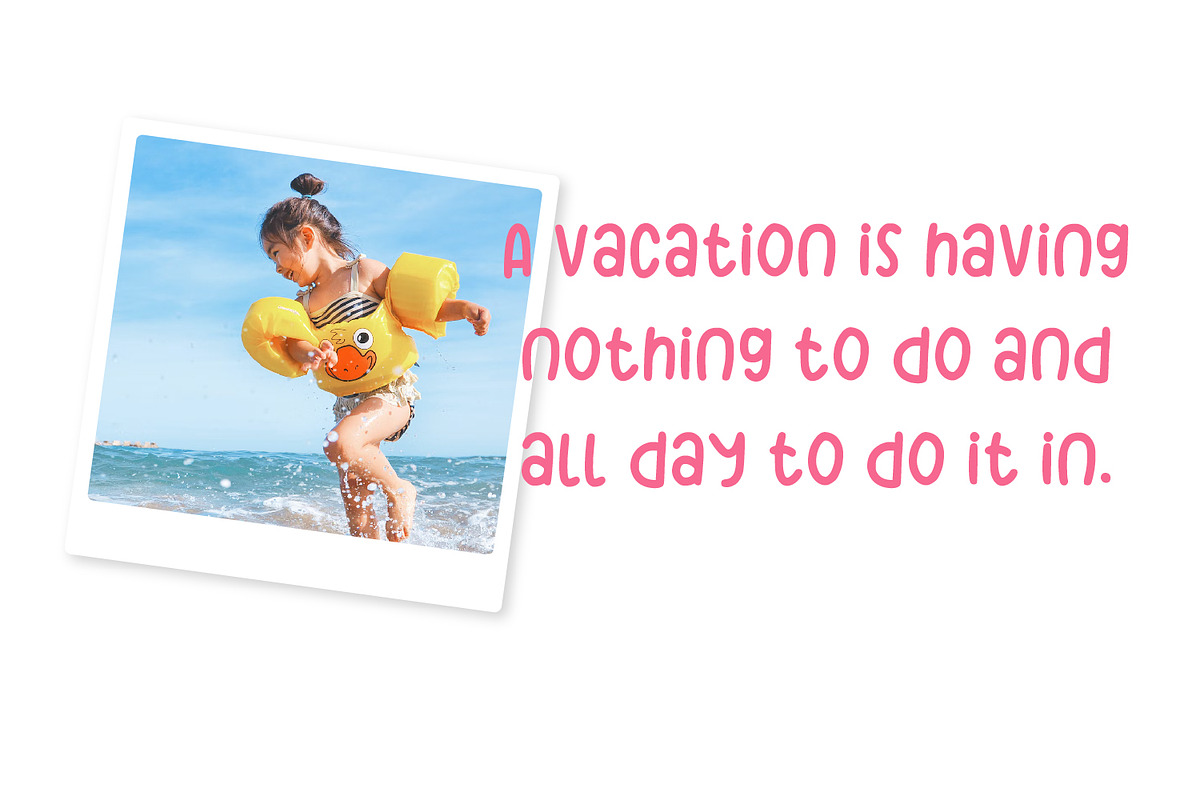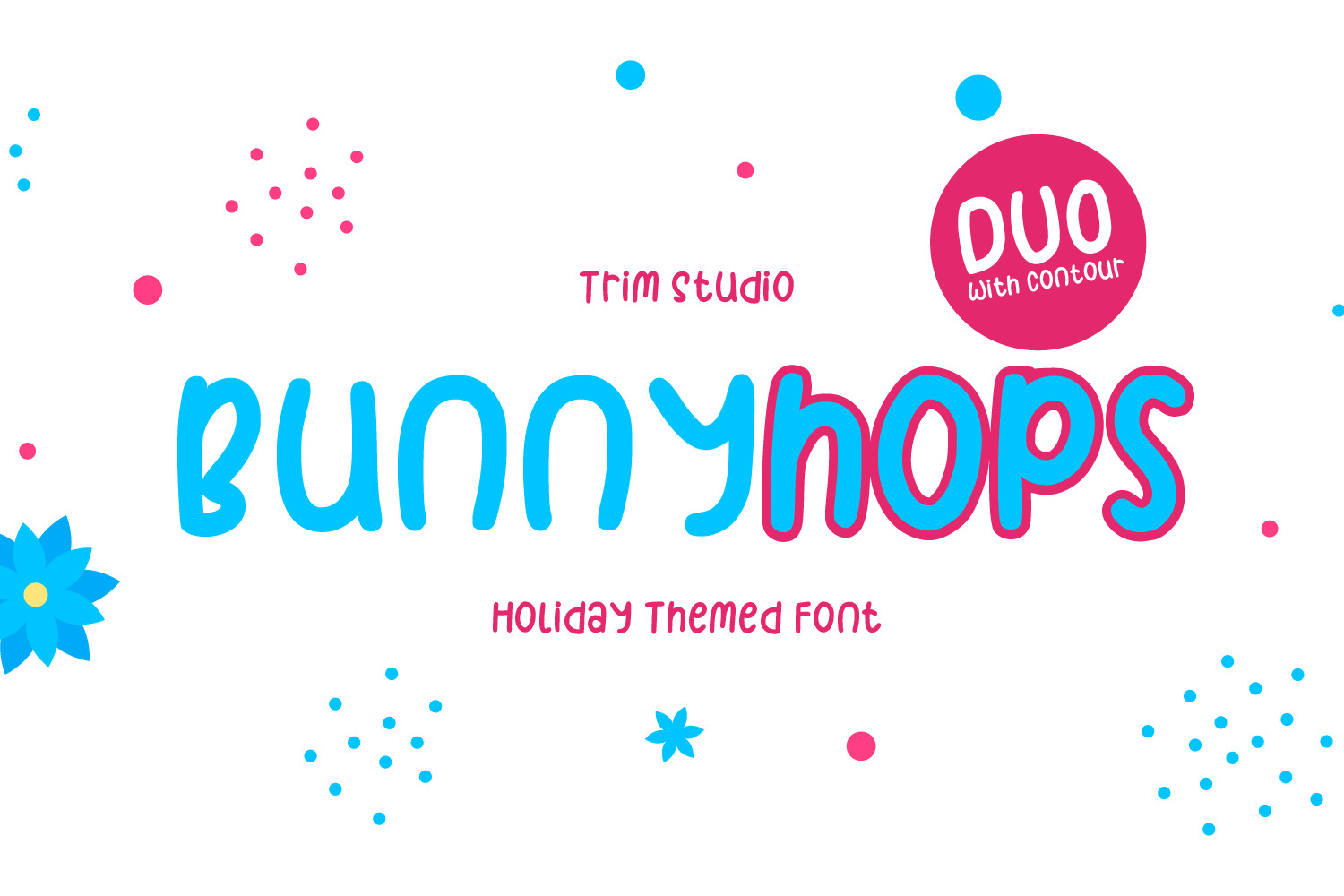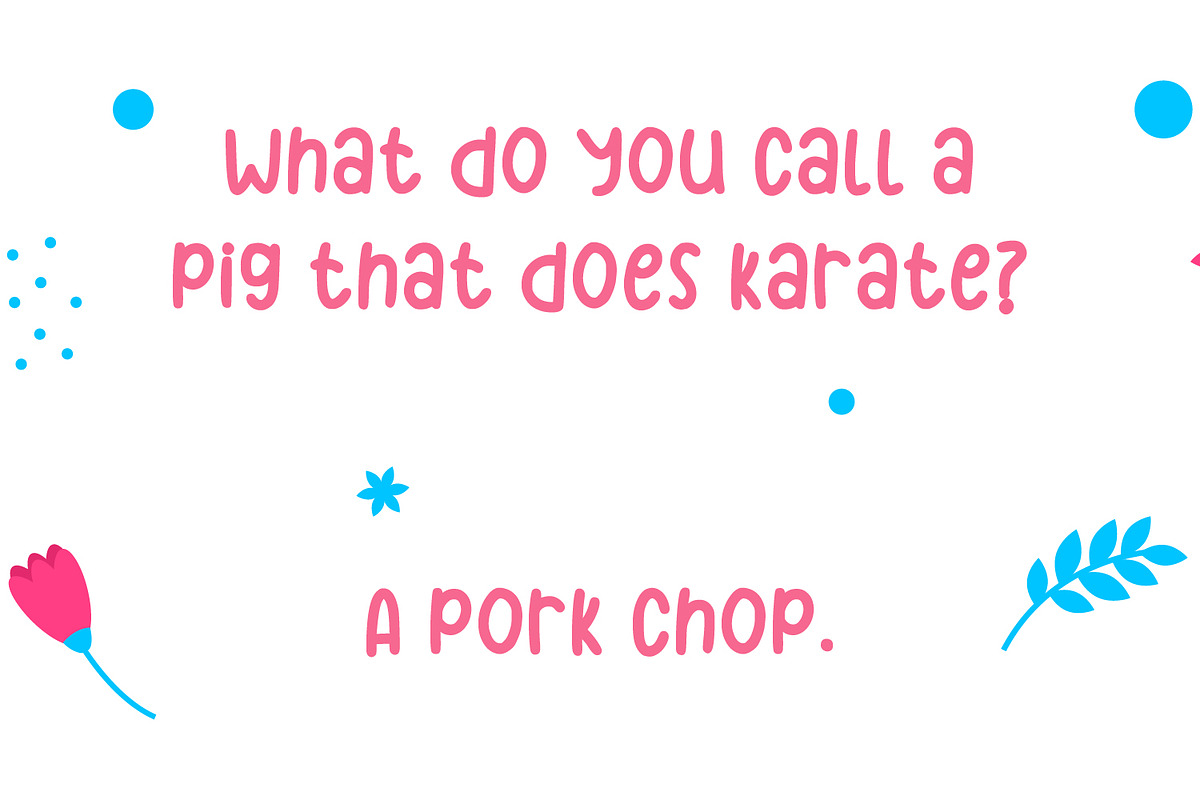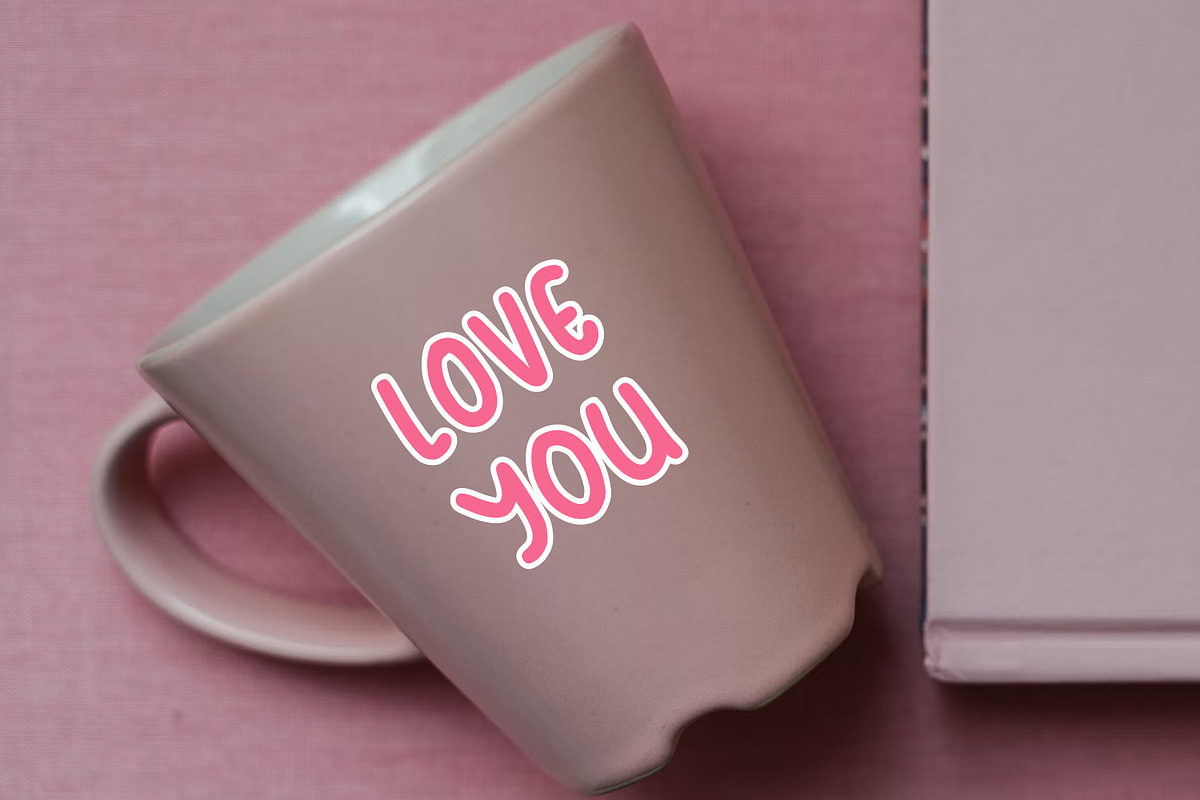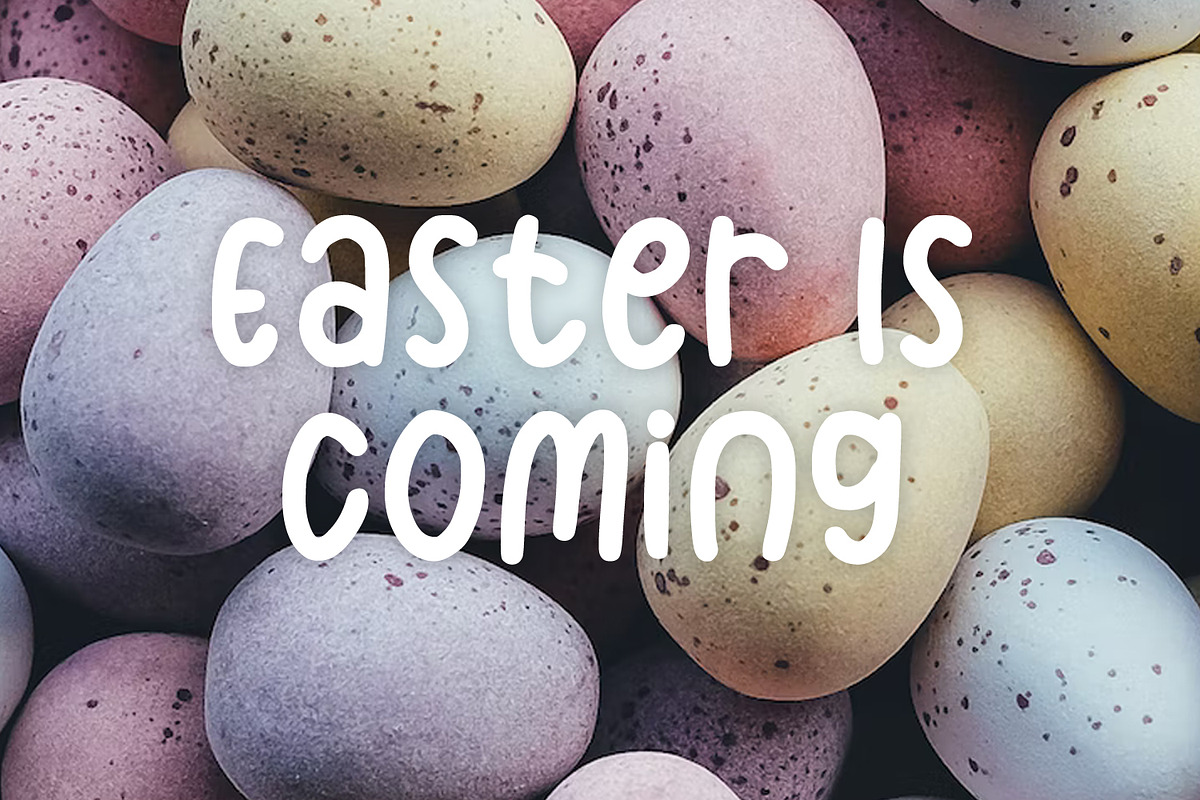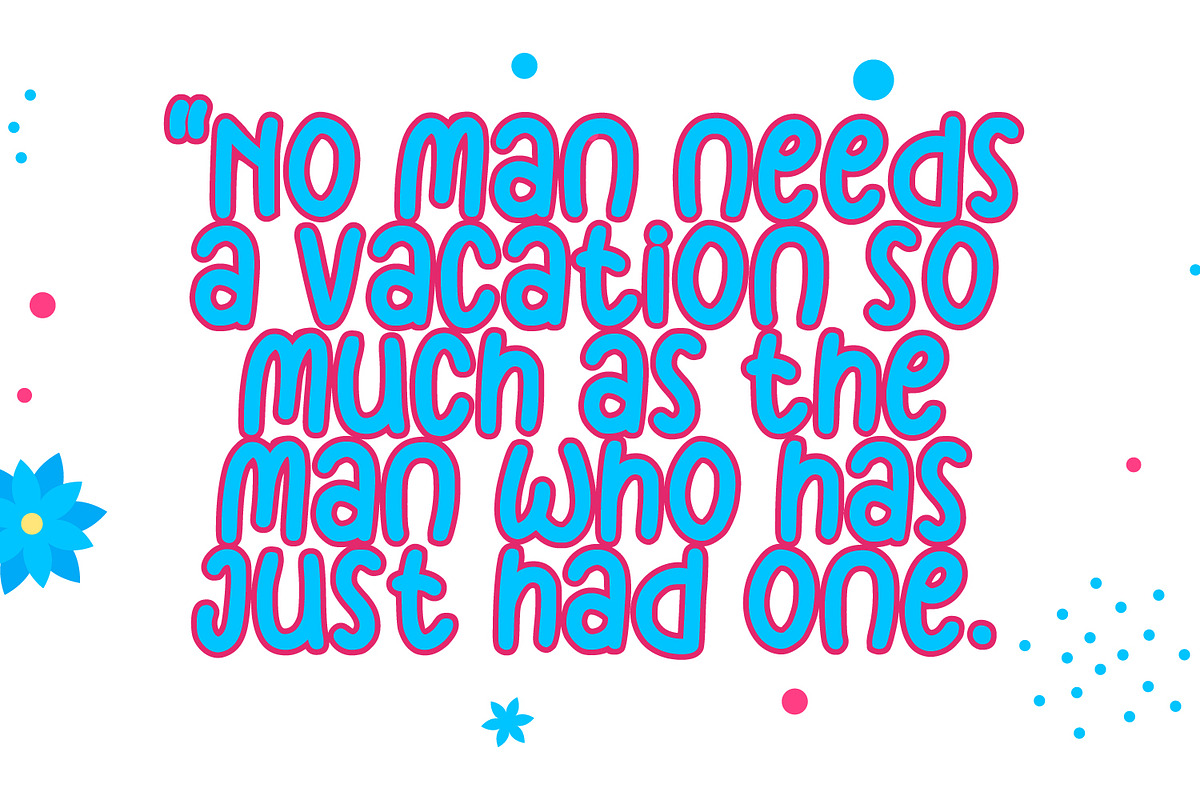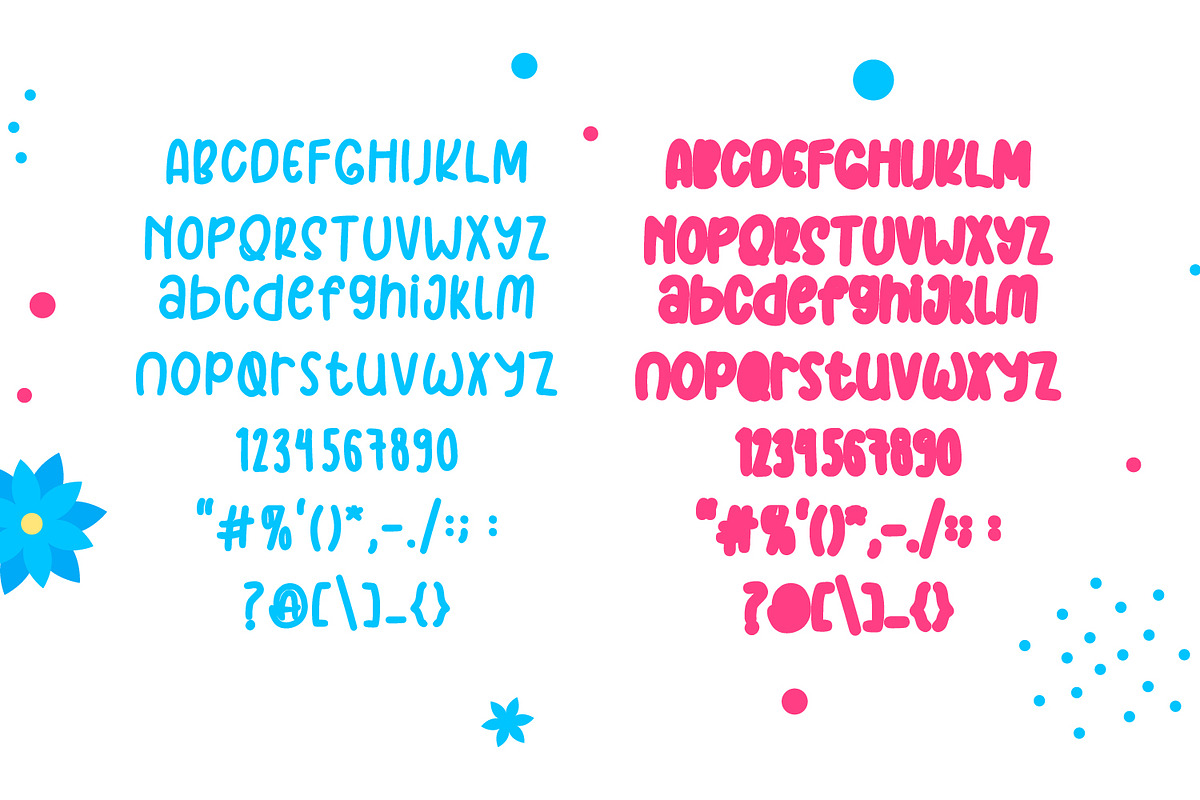
Bunnyhops - Font
Bunnyhops a playful and charming display font perfect for your Easter-themed designs! This font features rounded edges and cute movements, adding a fun and whimsical touch to any project. Whether you're creating invitations, flyers, or social media graphics, Easter Cutie is sure to grab attention and spread joy. Its versatile style makes it a great choice for both headlines and body text. Bring some extra cuteness to your designs with Easter Cutie!